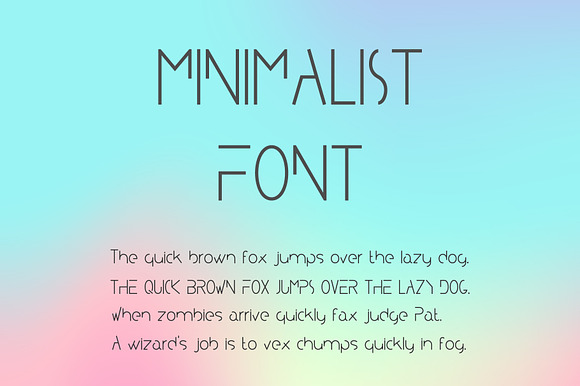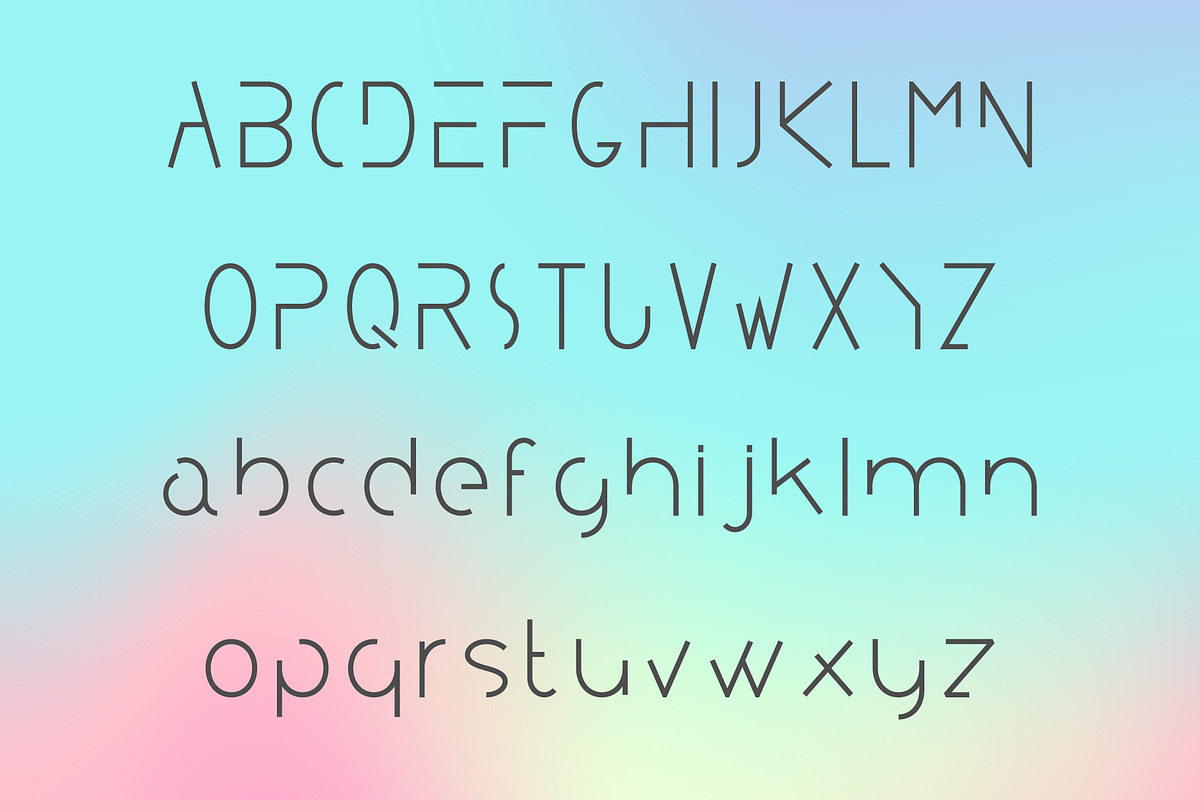
Minimalist Typeface. A Minimal Font
Minimalist Typeface is a modern minimalist and clean sans serif font. Perfect for trendy minimalist style design, headers, posters, cards, quotes, stationery, web sites. Web font version (WOFF) is also included.
1. Uppercase letters (A .. Z).
2. Lowercase letters (a .. z).
Does not contain: numbers, special symbols.
Minimalist Typeface. A Minimal Font by LuckyDesigner fits naturally into Branding, posters, packaging, typography.